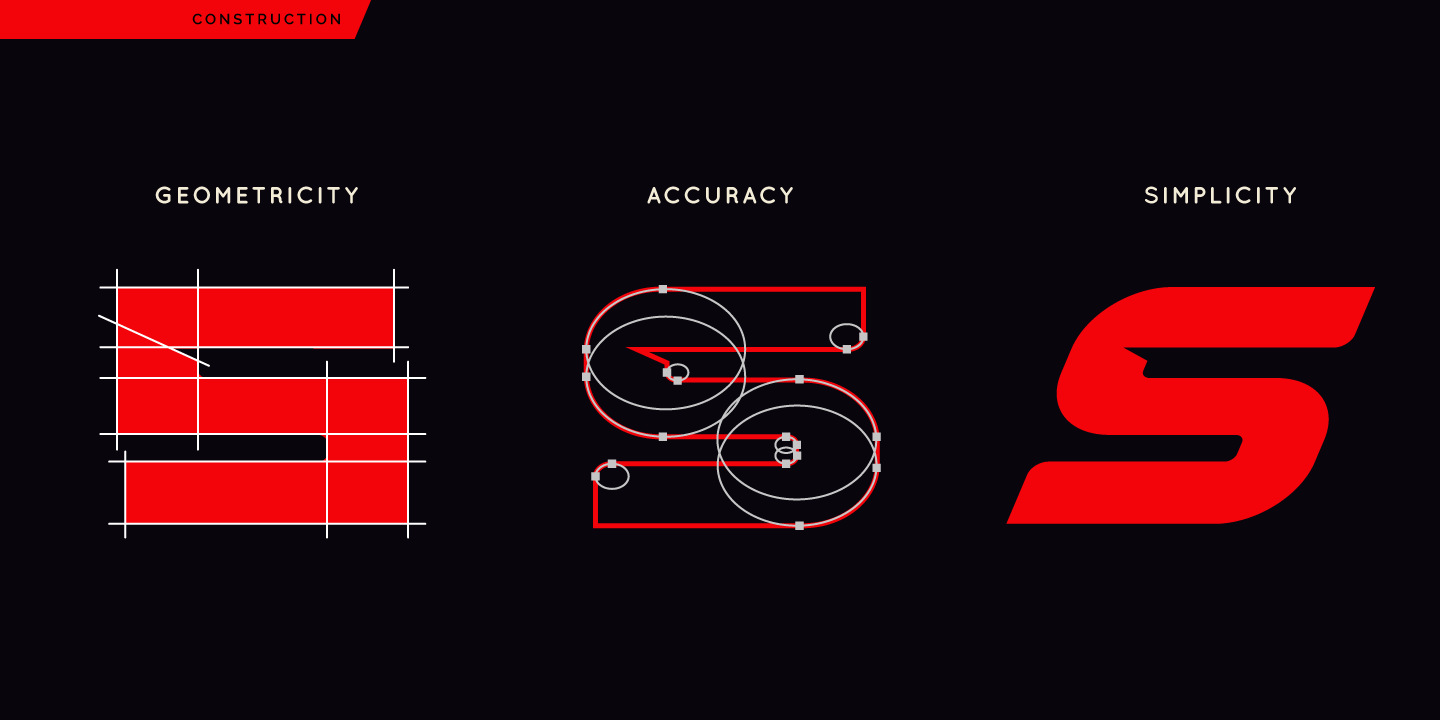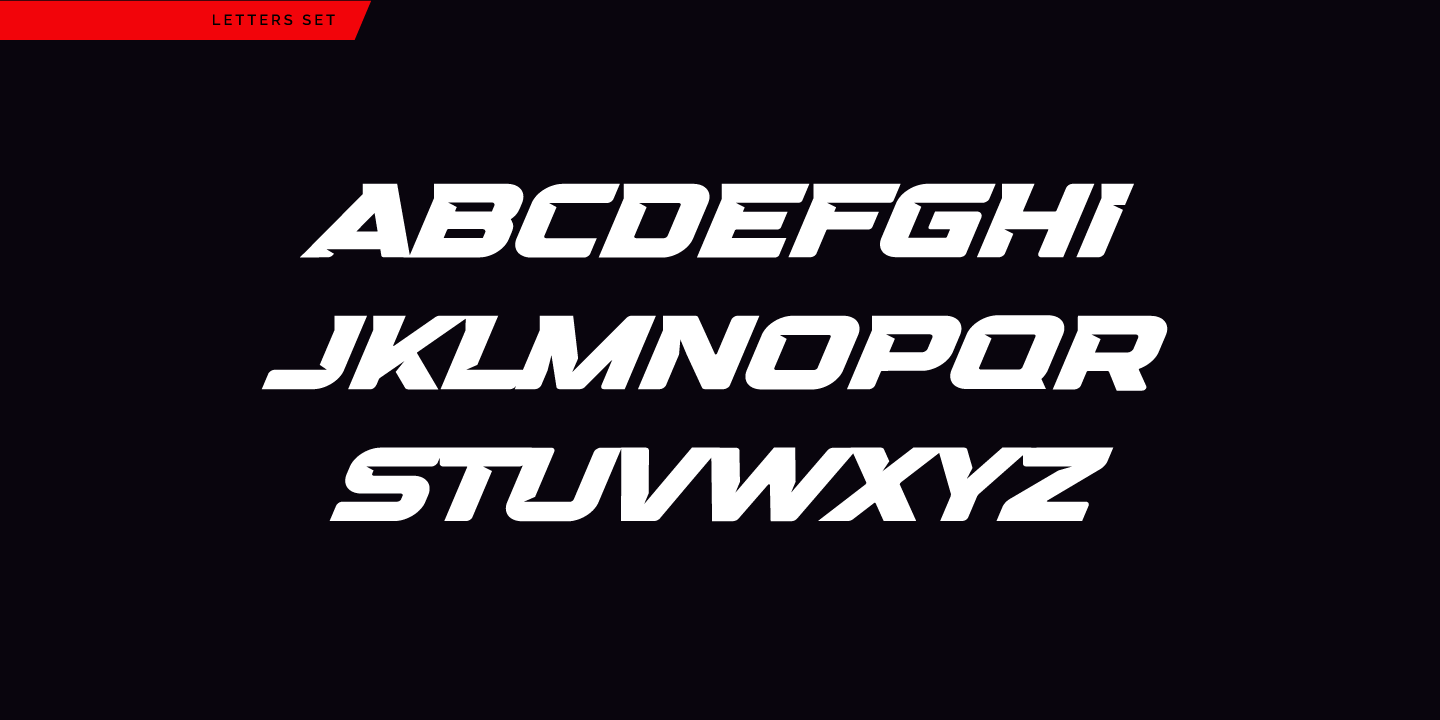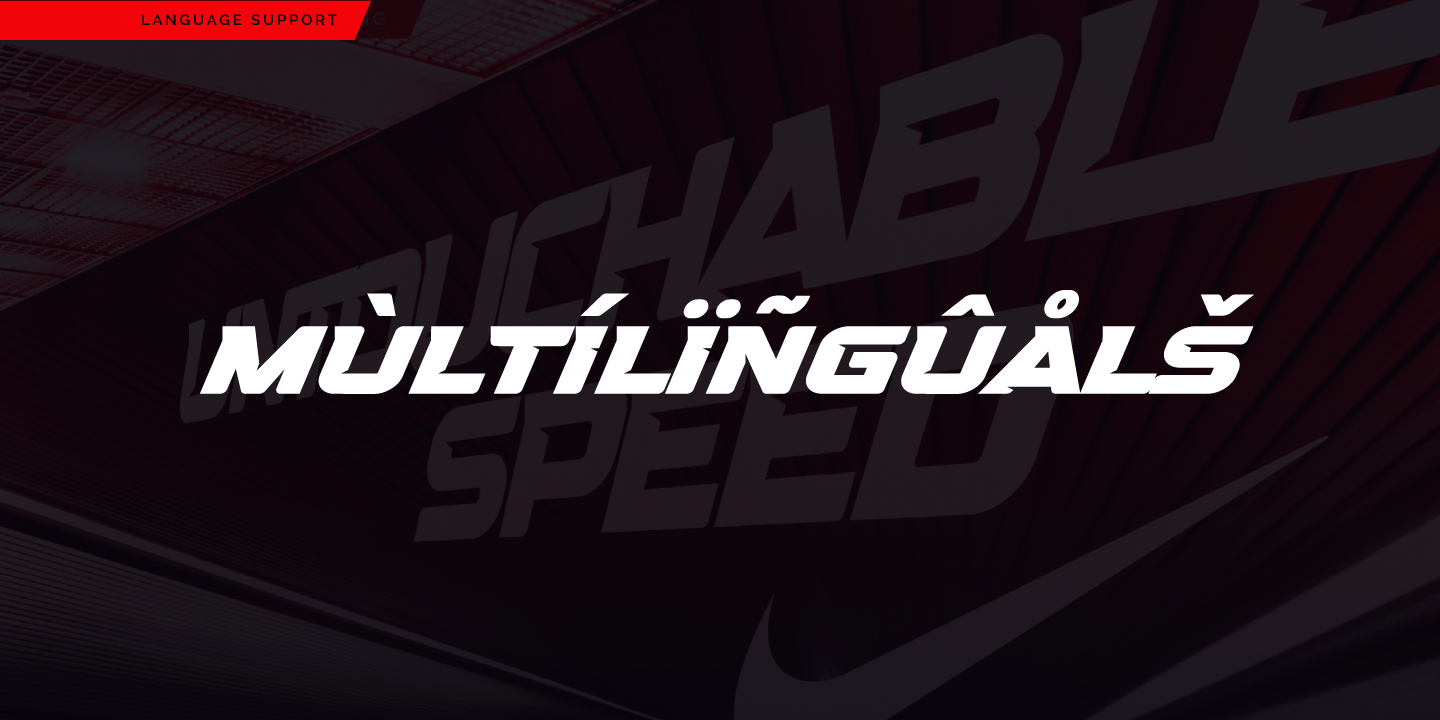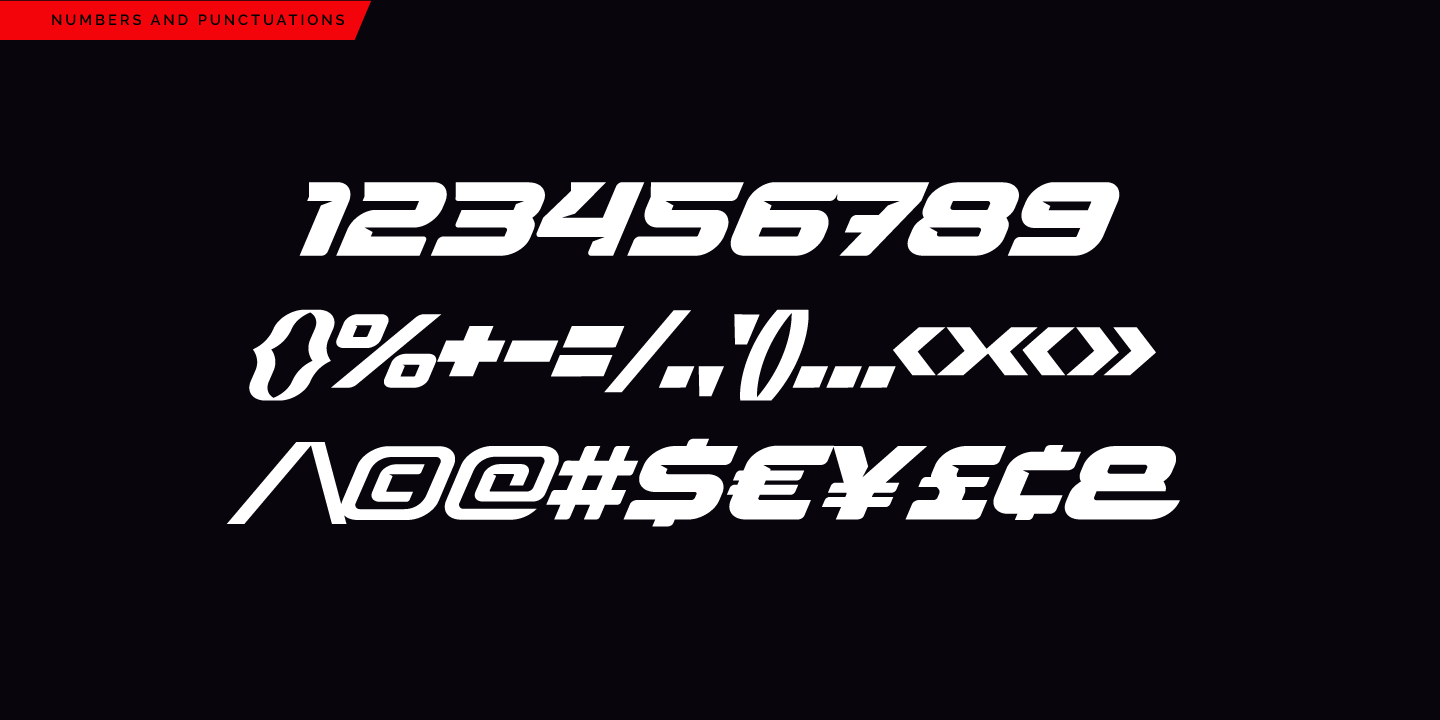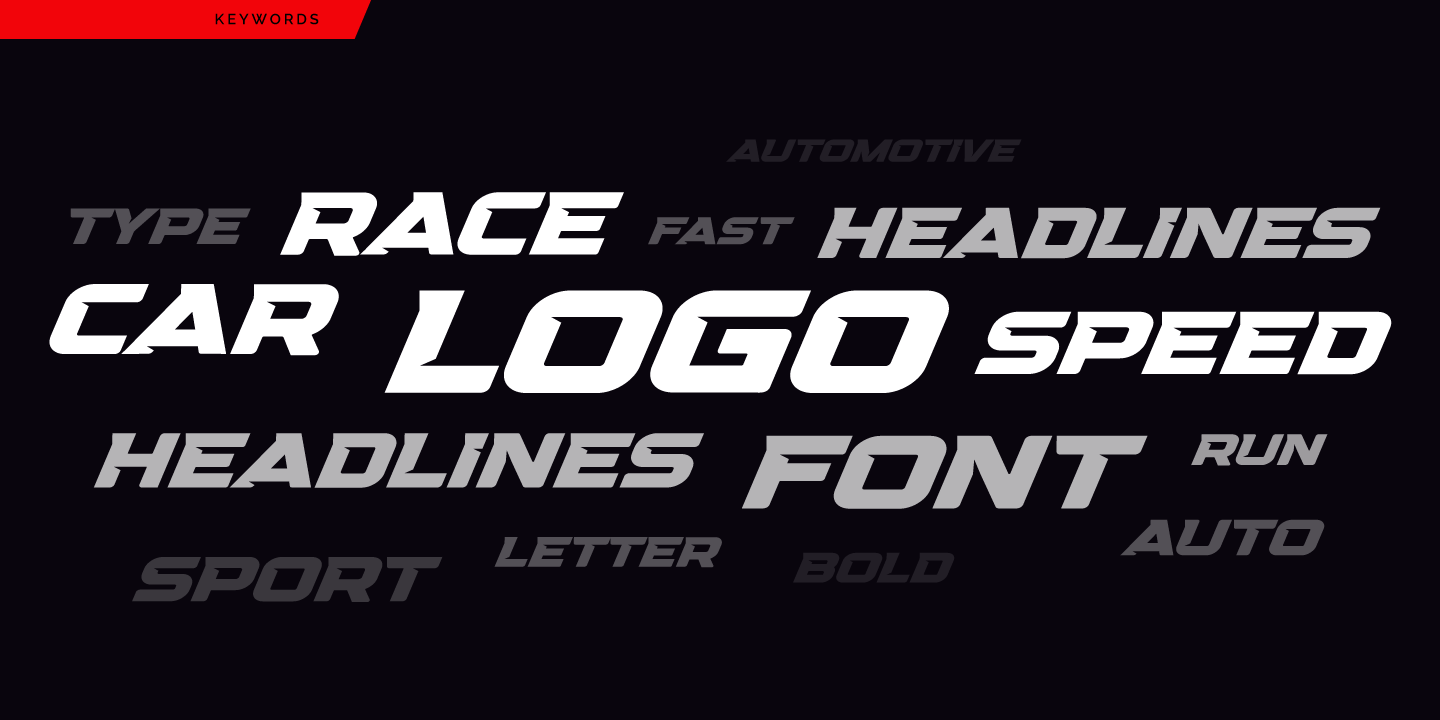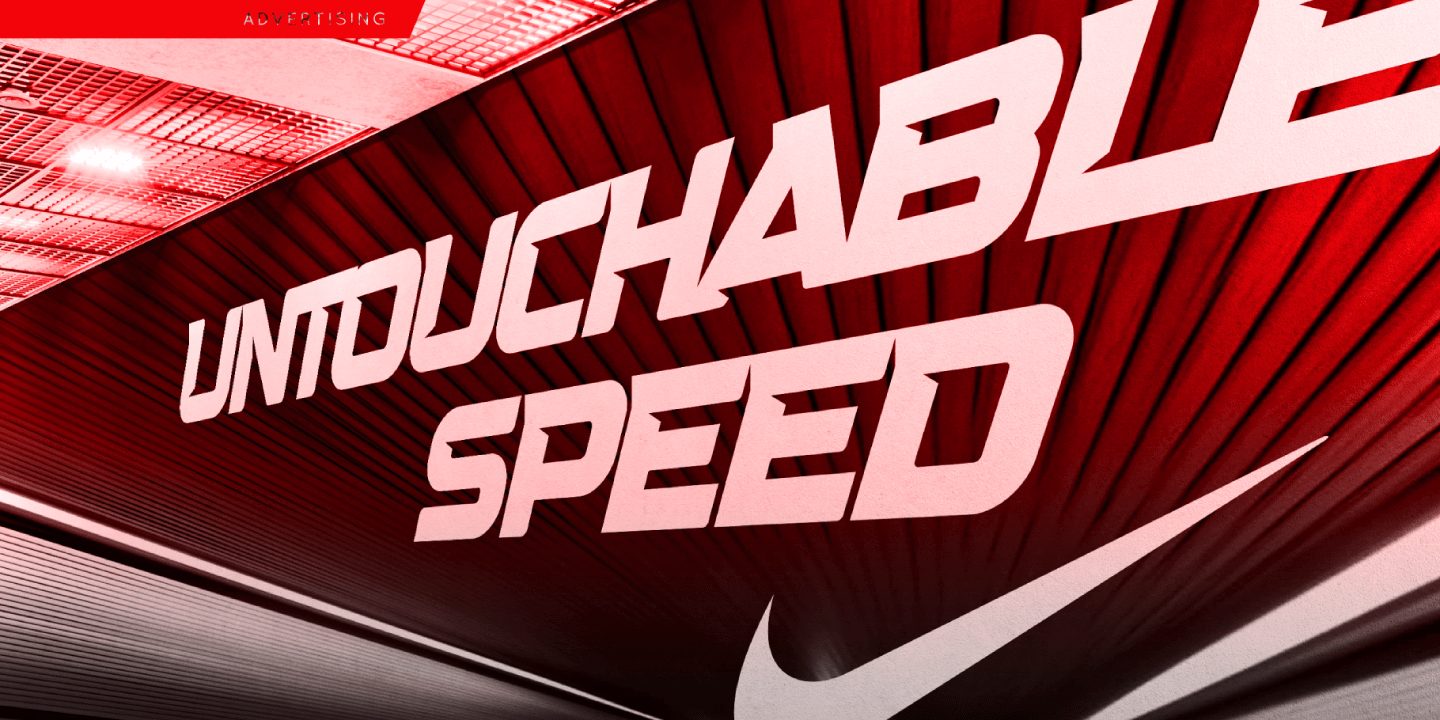
Speed Regular
Speed is a bold italic display font built for racing, automotive, sports and high-energy branding. Its forward-leaning construction, sharp cuts and compact geometric forms create a strong sense of motion, power and acceleration.
Designed primarily for short, impactful typography, Speed works well for logos, team identities, motorsport graphics, esports titles, sportswear, vehicle graphics, posters, packaging, advertising and editorial headlines.
The font includes uppercase letters, numerals, punctuation and multilingual Latin support. Its heavy weight and dynamic silhouette make it especially effective in large sizes, where the angular details and aggressive rhythm can be clearly seen.